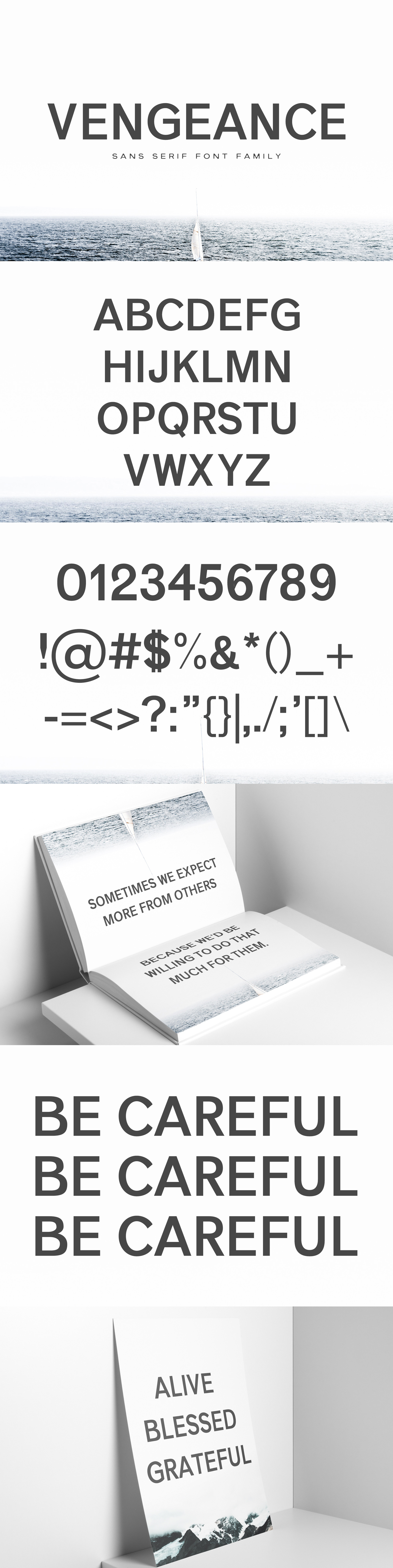
Vengeance Sans Serif Font Family
Vengeance Sans Serif Font is a beautiful serif font comes with 7 different weights. It includes all basic glyphs with Non-English characters. It’s a lovely and unique sans serif font in our store, allowing you to make each word look completely stylish! It Suits best for for headlines, posters, branding, packaging, presentations, logo, quotes, titles, magazines headings, web layouts, advertising, invitations, packaging design, books, and nearly any creative design.
- Font Weight: Regular, Light, Thin, Medium, Outline, Oblique and Bold
Vengeance Font Features:
- Uppercase Letters
- Lowercase Letters
- Non English Characters ( Latin Supplement + Latin Extended A)